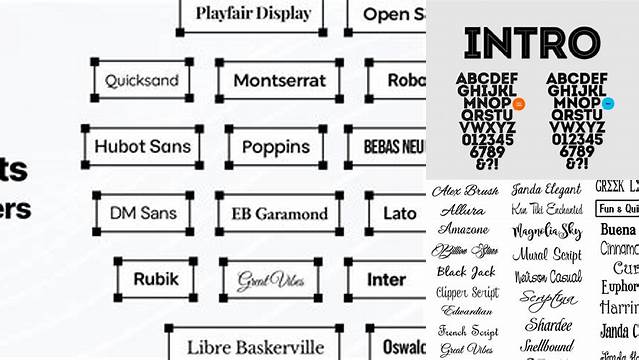
Top Fonts For Website Headers: Expert Guide
Hey guys! Choosing the right fonts for your website headers is super important. It's like picking the perfect outfit – it sets the tone and makes a killer first impression. A great font can grab attention, communicate your brand's personality, and make your website look professional and polished. But with so many fonts out there, how do you choose the best ones? Don't sweat it, we're here to break it down for you.
1. Why Header Fonts Matter: Setting the Tone
Fonts for website headers are your chance to make a statement. Think of your header as the headline of a newspaper – it needs to be eye-catching and informative. The font you choose plays a huge role in conveying the right message. A bold, modern font might work wonders for a tech company, while a more elegant, serif font could be perfect for a luxury brand. It's all about aligning the font with your brand's identity and the overall aesthetic of your website. Using the wrong font can make your site look unprofessional or even confusing, so take your time and choose wisely. Consider your target audience, too. What kind of fonts will resonate with them? Do they prefer clean, minimalist designs, or something more playful and creative? Thinking about these factors will help you narrow down your options and find the perfect font for your header.
2. Serif Fonts for Headers: Classic and Timeless
Serif fonts, with their little decorative strokes, have a classic and timeless feel. Think Times New Roman, Georgia, or Playfair Display. These fonts are often associated with tradition, authority, and sophistication. They're great for websites that want to project a sense of elegance or credibility. For example, a law firm might use a serif font to convey trustworthiness and experience. However, serif fonts can sometimes look a bit dated if not used carefully. The key is to choose a serif font that feels fresh and modern. Pair it with a clean, sans-serif font for the body text to create a balanced and visually appealing design. Also, consider the size and weight of the font. A large, bold serif font can make a strong statement, while a smaller, lighter one can create a more subtle and refined look. Experiment with different options to see what works best for your brand.
3. Sans-Serif Fonts for Headers: Modern and Clean
Sans-serif fonts, on the other hand, are all about modernity and simplicity. Fonts like Arial, Helvetica, and Open Sans are clean, straightforward, and easy to read. They're a popular choice for websites that want to convey a sense of clarity and efficiency. Tech companies, startups, and businesses with a contemporary vibe often use sans-serif fonts in their headers. These fonts are also great for mobile-friendly websites because they tend to look crisp and legible on smaller screens. When choosing a sans-serif font, pay attention to the spacing and kerning (the space between letters). A well-spaced font will be much easier to read and will give your website a more polished look. You can also play around with different weights and styles to create visual interest. A bold sans-serif font can be very effective for headlines, while a lighter one can be used for subheadings or body text.
4. Display Fonts: Making a Statement
Fonts for website headers can also include display fonts are designed to grab attention. These fonts are often more stylized and unique than your average serif or sans-serif font. Think fonts with unusual shapes, bold strokes, or decorative elements. Display fonts are great for making a statement and adding personality to your website. However, they should be used sparingly. Overusing display fonts can make your website look cluttered and overwhelming. The best way to use display fonts is to reserve them for headings and other key elements. Pair them with a simpler font for the body text to create a balanced and visually appealing design. When choosing a display font, make sure it's still readable. A font that's too difficult to read will turn visitors off and defeat the purpose of using it.
5. Pairing Fonts: Creating Visual Harmony
Fonts for website headers are often paired with other fonts. Pairing fonts is an art in itself. The goal is to create visual harmony and ensure that your website is easy to read and navigate. A good rule of thumb is to pair a serif font with a sans-serif font. This creates a nice contrast and prevents your website from looking too monotonous. For example, you could use a serif font for the headings and a sans-serif font for the body text, or vice versa. Another option is to use different weights and styles of the same font family. For example, you could use a bold version of a font for the headings and a regular version for the body text. This creates a cohesive look without being too boring. When pairing fonts, it's important to consider the overall tone and style of your website. Choose fonts that complement each other and reinforce your brand's identity.
6. Font Size and Weight: Optimizing Readability
Fonts for website headers must have an optimal font size and weight. The size and weight of your header fonts can have a big impact on readability. A font that's too small will be difficult to read, while a font that's too large can be overwhelming. The ideal font size will depend on the font itself and the overall design of your website. As a general rule, headings should be larger than the body text. This helps to create a clear visual hierarchy and makes it easier for visitors to scan your website. The weight of the font (e.g., light, regular, bold) can also affect readability. A bold font will stand out more, but it can also be tiring to read if used excessively. Experiment with different sizes and weights to see what works best for your website. Also, consider the screen size of your visitors. A font that looks great on a desktop computer might be too small on a mobile device. Make sure your website is responsive and that the fonts are optimized for different screen sizes.
7. Color Contrast: Ensuring Legibility
The color contrast between your header fonts and the background is crucial for ensuring legibility. If the colors are too similar, the text will be difficult to read. A good rule of thumb is to use a high-contrast color combination, such as black text on a white background or white text on a black background. However, you don't have to stick to these basic combinations. You can also use other color combinations that are visually appealing and consistent with your brand's identity. Just make sure that the contrast is high enough to ensure that the text is easy to read. You can use online tools to check the contrast ratio of your color combinations. These tools will tell you whether the contrast is sufficient for accessibility standards. Also, consider the colorblindness of your visitors. Choose colors that are easily distinguishable by people with different types of colorblindness.
8. Mobile Responsiveness: Fonts on Different Devices
Making sure your fonts for website headers are mobile responsive is a must. With more and more people accessing websites on mobile devices, it's essential to ensure that your header fonts look good on all screen sizes. This means choosing fonts that are legible on smaller screens and adjusting the font size and spacing as needed. A responsive website will automatically adjust the layout and content to fit the screen size of the device. This includes resizing the fonts and adjusting the spacing to ensure that everything is easy to read and navigate. You can use CSS media queries to specify different font sizes and styles for different screen sizes. This allows you to create a customized experience for mobile users. Also, consider using a mobile-friendly font. Some fonts are specifically designed to look good on mobile devices.
9. Loading Speed: Optimizing Font Performance
Fonts for website headers need to have optimized font performance. The fonts you choose can affect the loading speed of your website. Large font files can slow down your website, which can lead to a poor user experience. To optimize font performance, choose fonts that are lightweight and load quickly. You can also use font compression techniques to reduce the file size of your fonts. Another option is to use a web font service, such as Google Fonts or Adobe Fonts. These services host the fonts on their servers, which can improve loading speed. When using web fonts, be sure to specify the font-display property. This property tells the browser how to handle font loading. Setting the font-display property to swap will tell the browser to display the text in a fallback font until the web font is loaded. This can prevent the text from being invisible while the font is loading.
30. Future Trends in Web Typography
Stay updated with future trends in web typography, including variable fonts and dynamic font technologies for innovative fonts for website headers.
Choosing the right fonts for your website headers can make a world of difference. Take your time, experiment with different options, and don't be afraid to ask for feedback. With a little effort, you can find the perfect fonts to elevate your website and make a lasting impression.